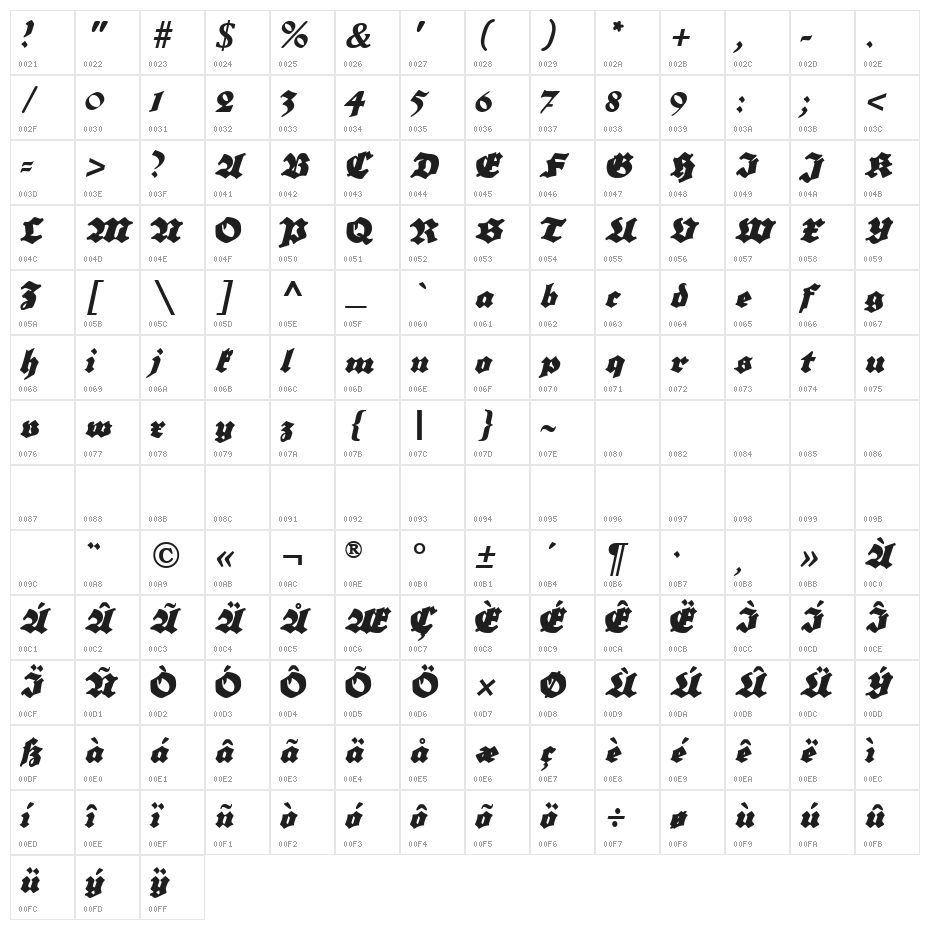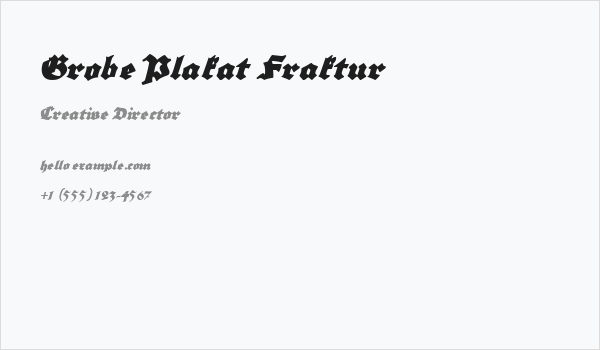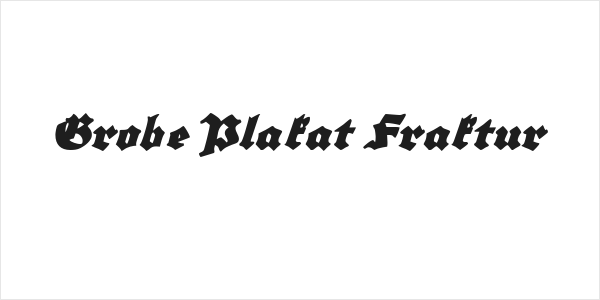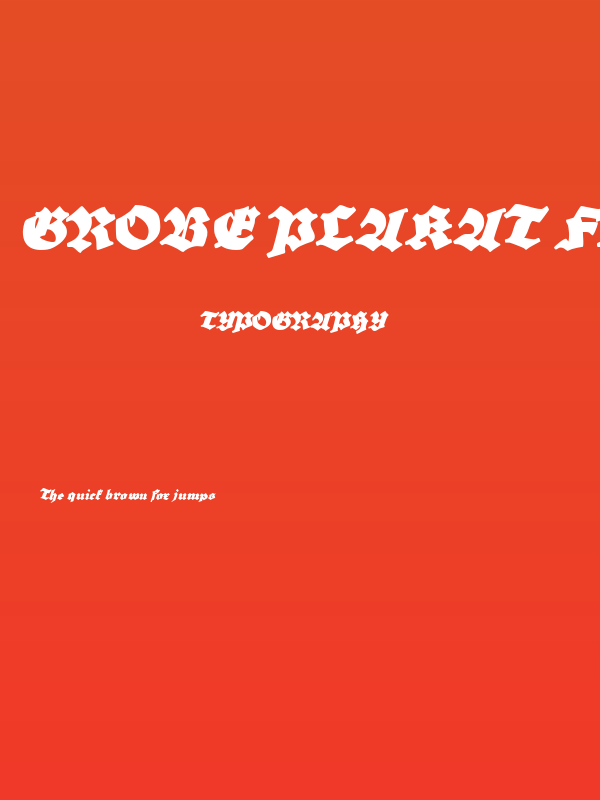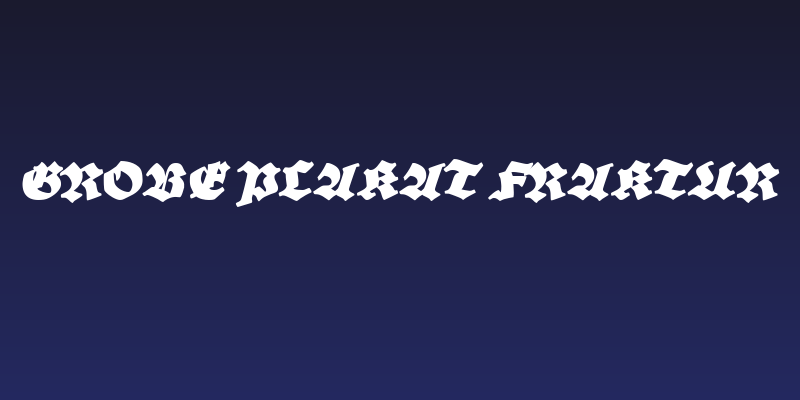
Grobe Plakat Fraktur Font
Grobe Plakat Fraktur Description
This font showcases a bold and dramatic style, characterized by its intricate and angular letterforms. The strokes are thick and pronounced, giving it a strong presence. The uppercase and lowercase letters maintain a consistent style, with sharp edges and a traditional feel reminiscent of historical scripts. The numerals and special characters follow the same design principles, ensuring uniformity across all glyphs. This font is ideal for projects that require a touch of elegance and historical depth, making it suitable for formal invitations, certificates, and branding that seeks to convey a sense of tradition and authority.
| Proposed Projects | Ideal for formal invitations, certificates, branding, and projects requiring a historical touch. |